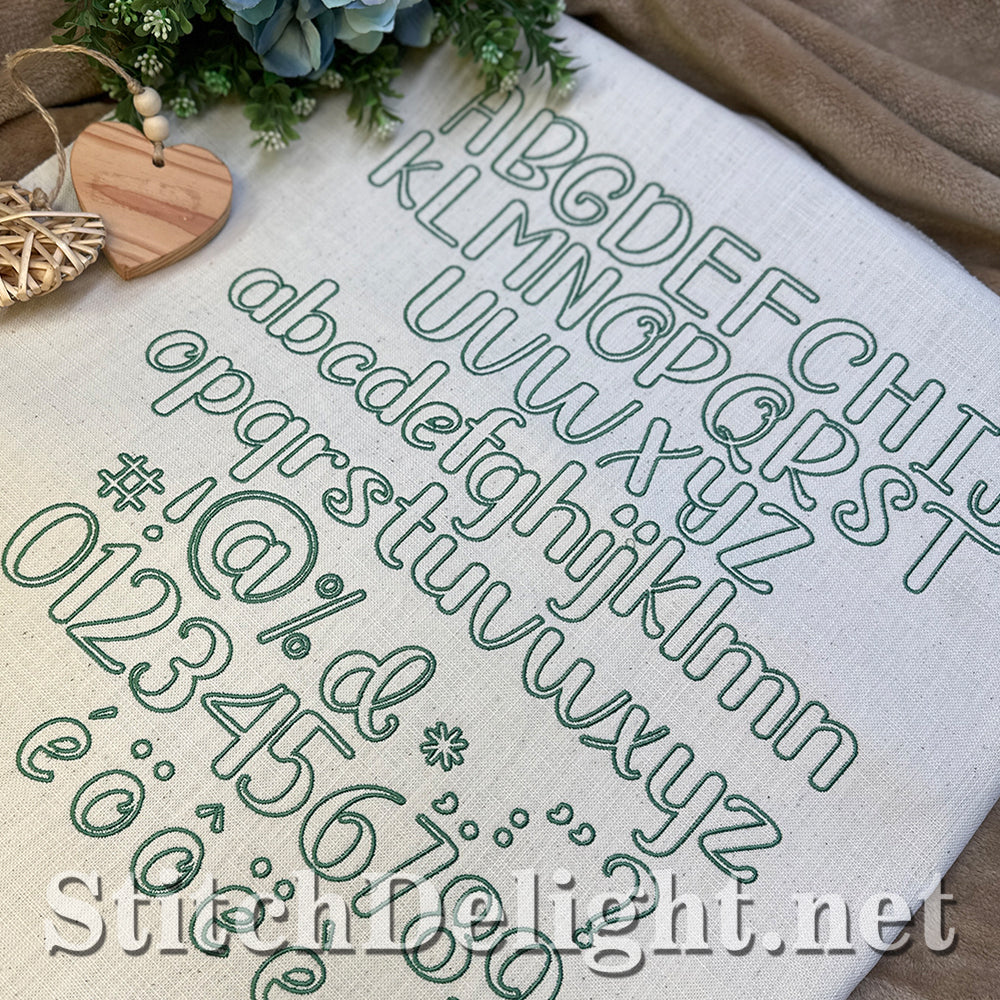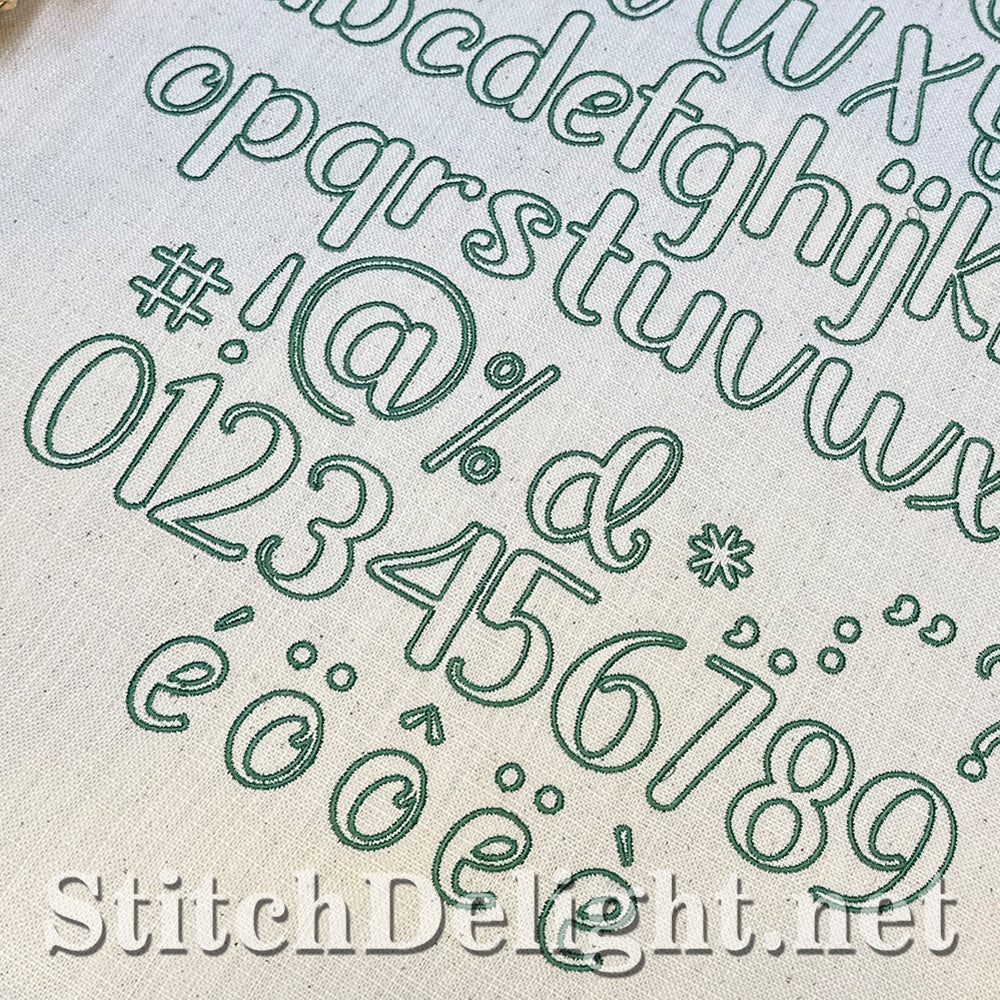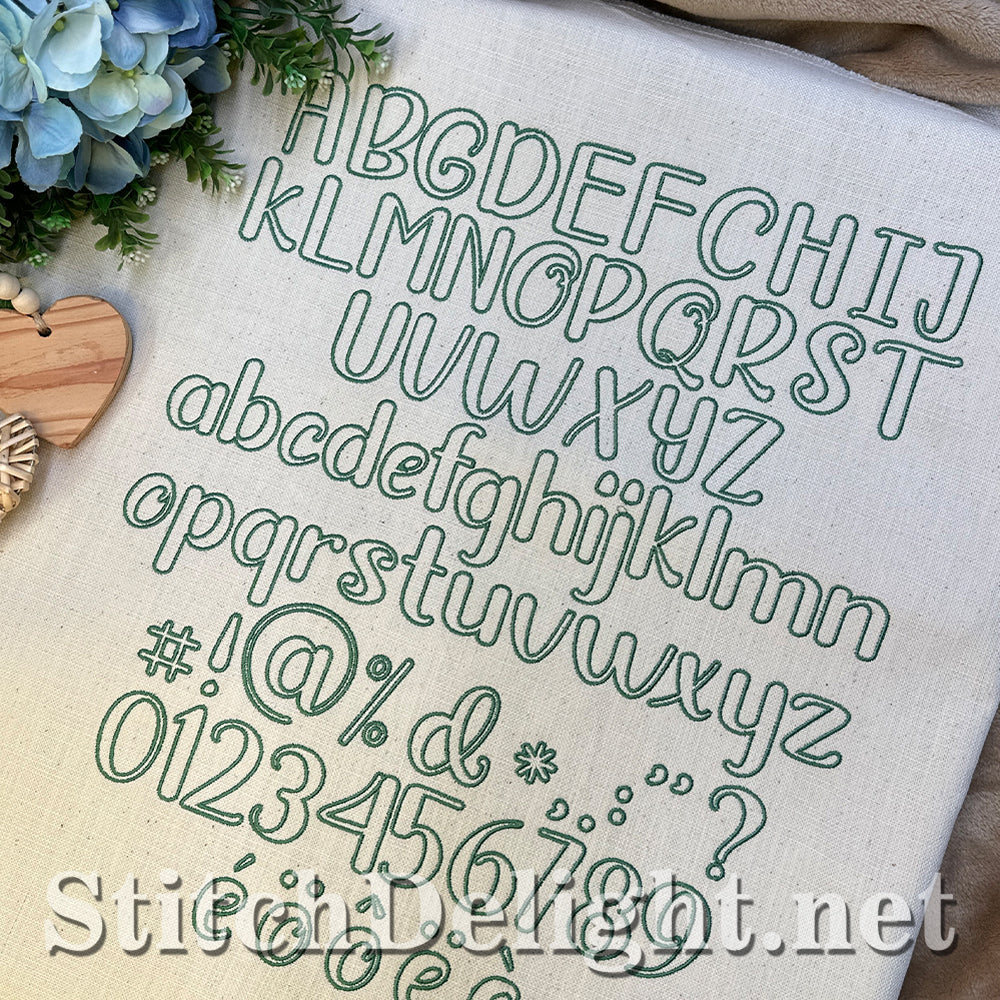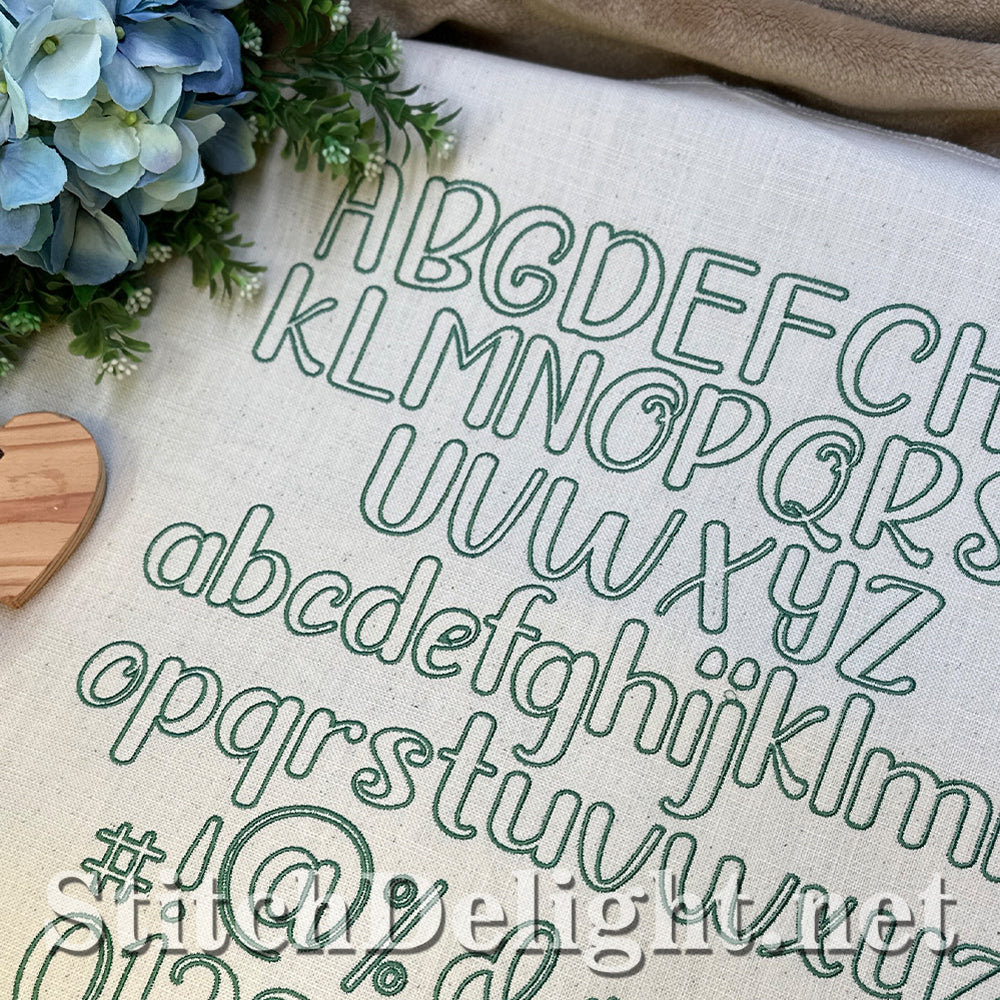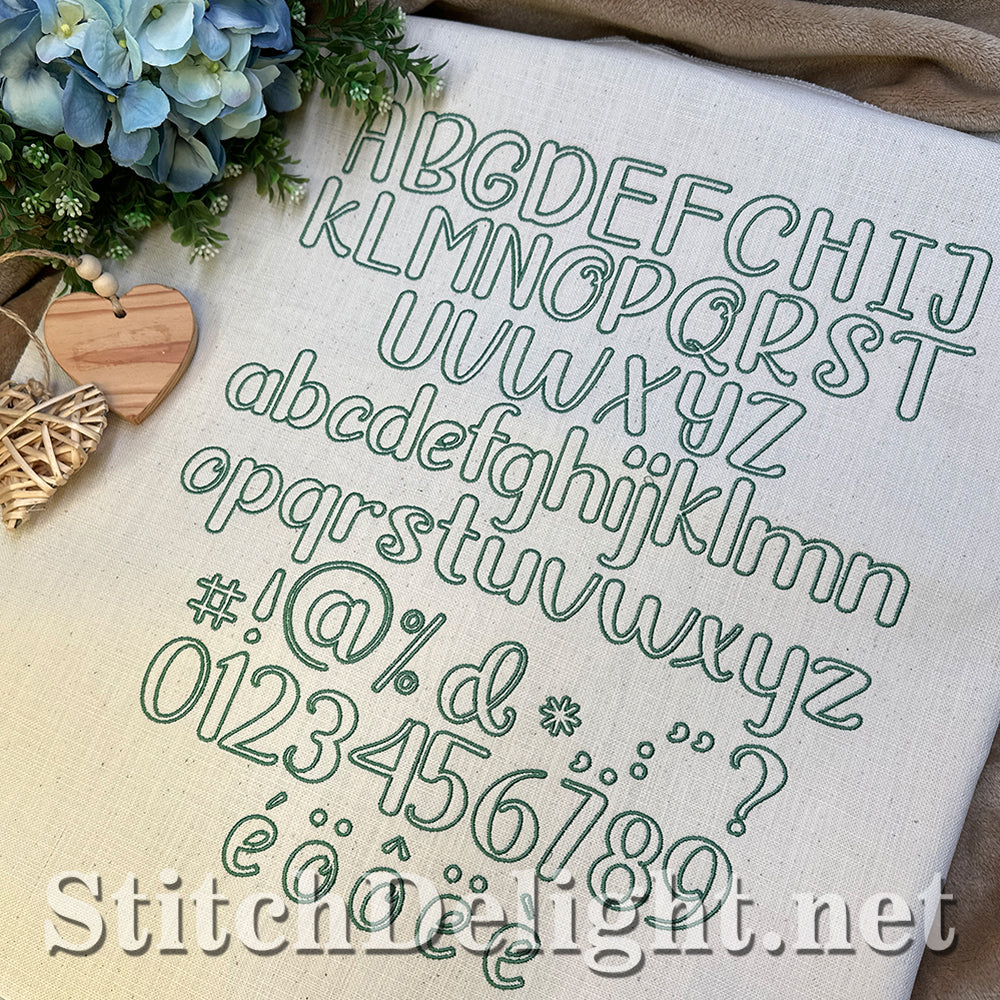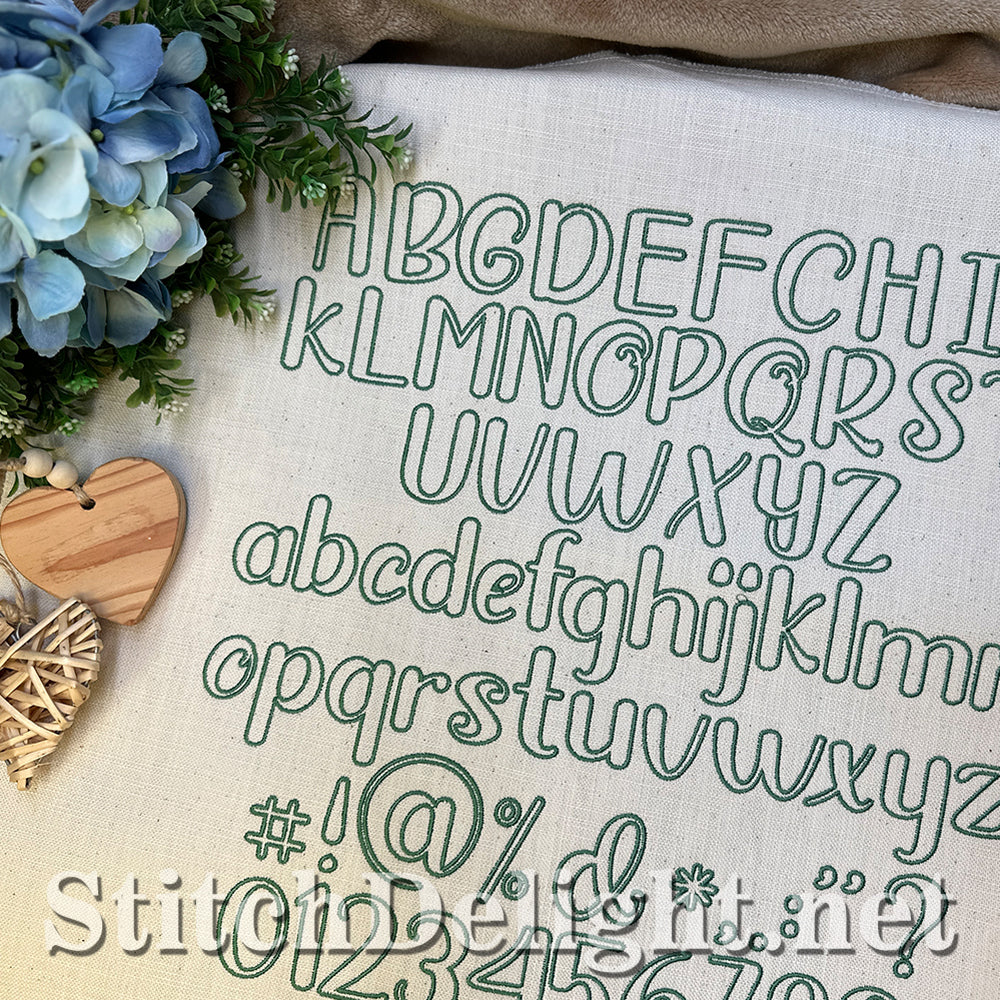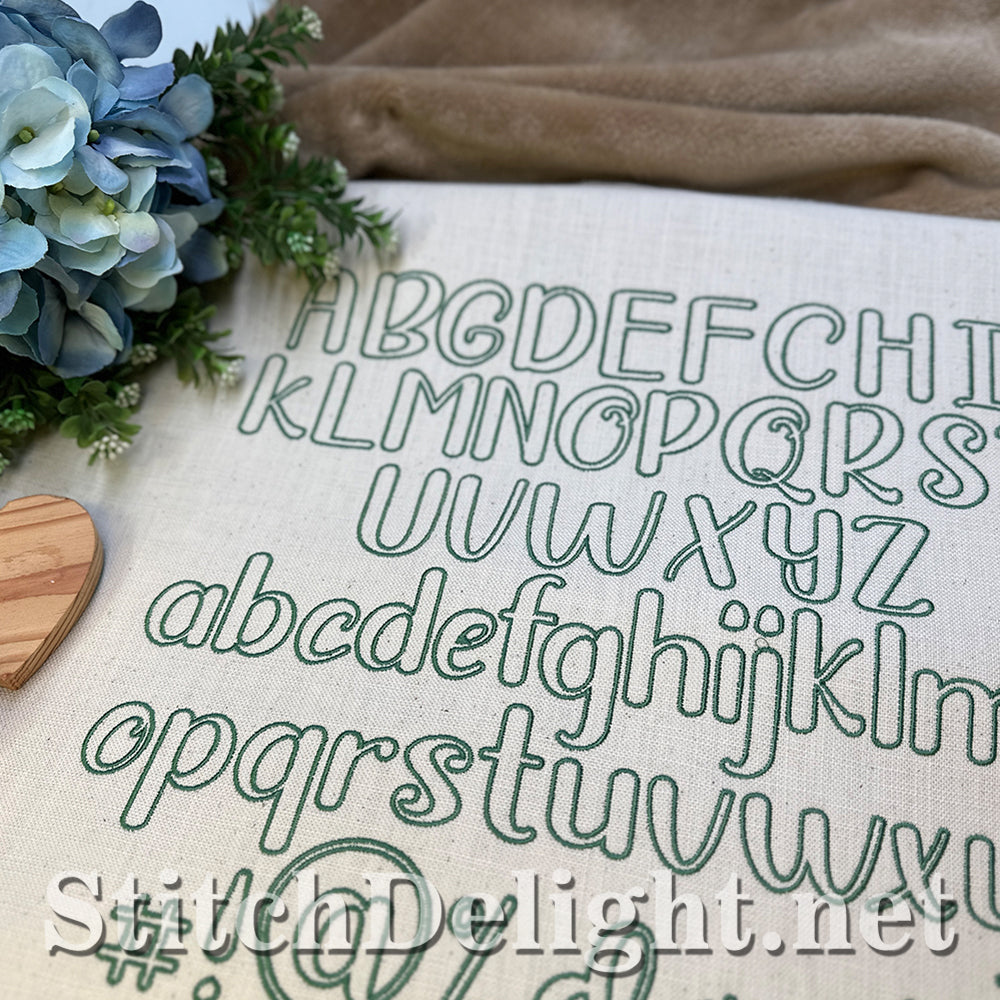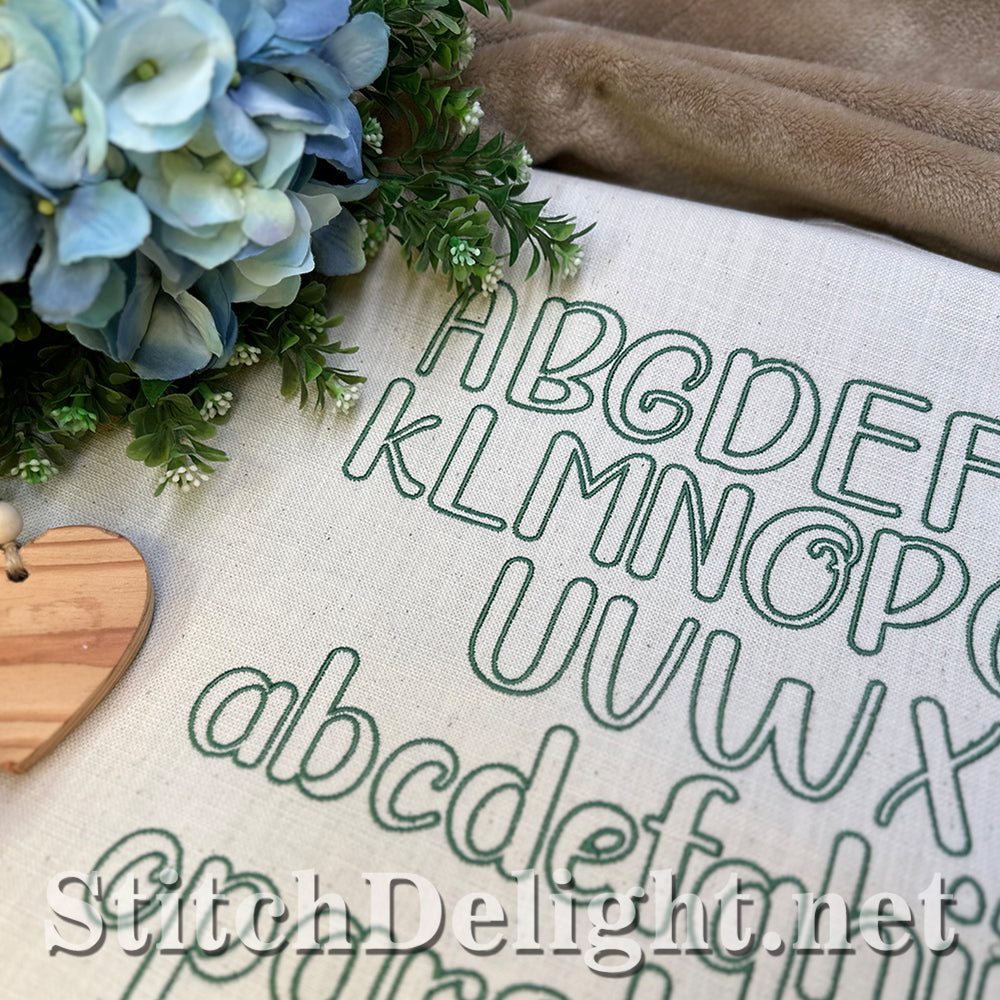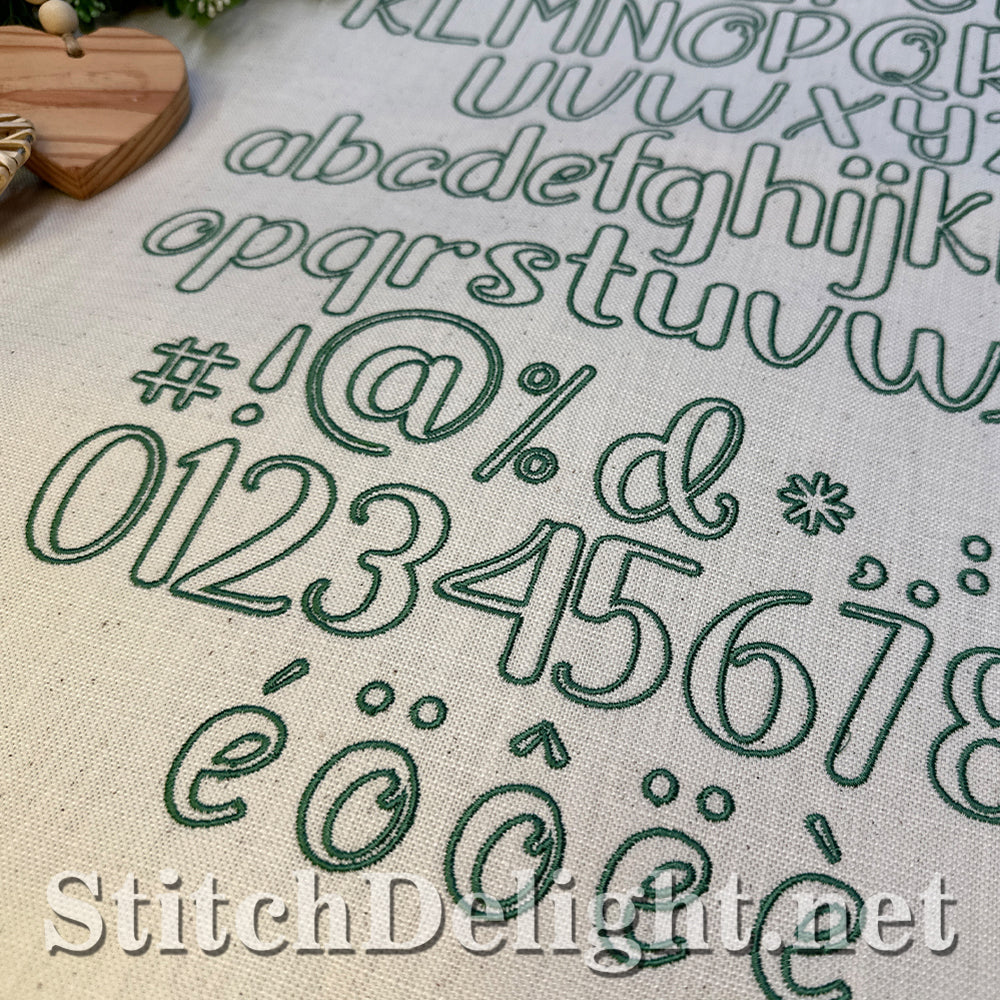
SDS4434 Lily Outline Font
Made specially to match the stunning and elegant Lily of the Valley Collectors Font.
It's got an average height of 1.2", what sets this font apart from the rest is the included special characters. We've included characters such as ê, ë, è, é